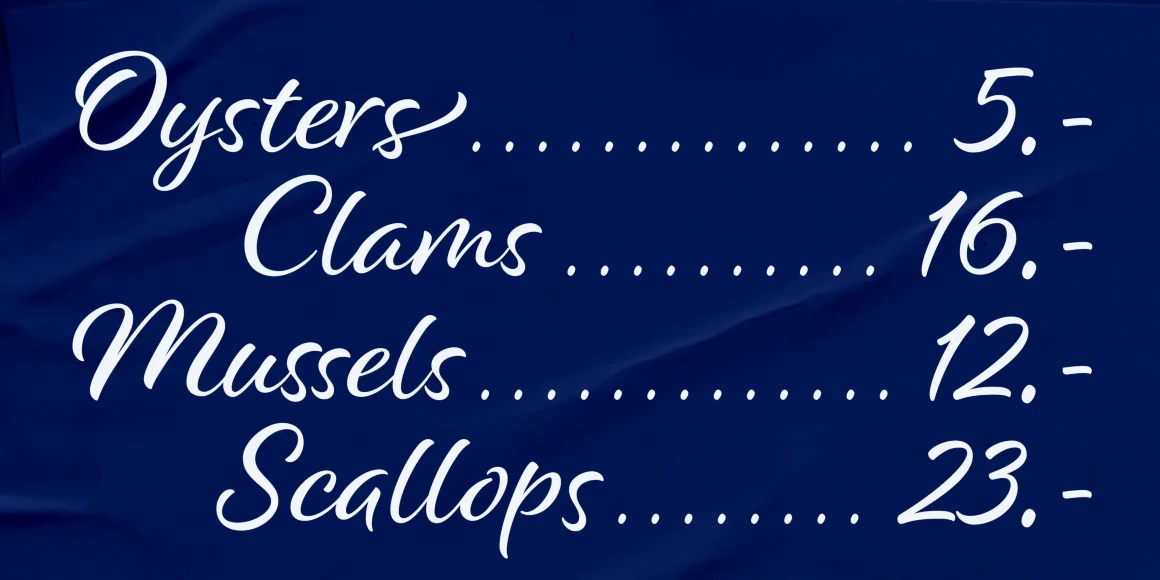
Alisha Font
Alisha
Alisha is an expressive yet legible script face with a generous x-height and a equally generous complement of over 200 alternates and swash forms. Alisha retains the distinctive look of custom lettering with varied letterforms that are personable; yet polished and refined. Alisha is ideal for attracting buyers to product packaging, beckoning readers to headlines and hero graphics, or charming clients in identities and wordmarks.
OpenType Features
• Common Ligatures
• Stylistic Alternates
• Stylistic Sets
• Swashes